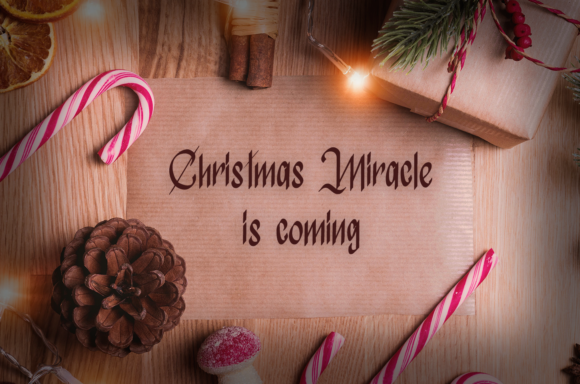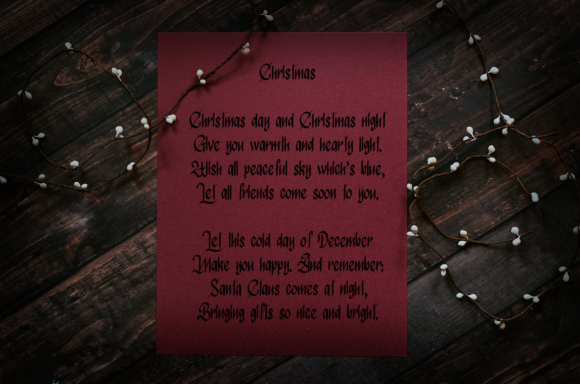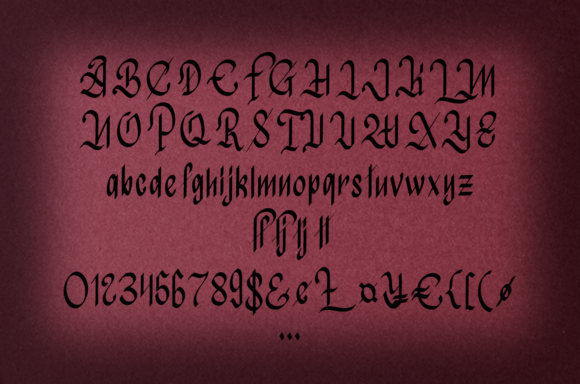
Introduction to Atmospheric Christmas Font
Atmospheric Christmas is a vintage blackletter font that celebrates the spirit of Christmas.
Use it to add a nostalgic feel to any design idea .
Key Features of Atmospheric Christmas Font